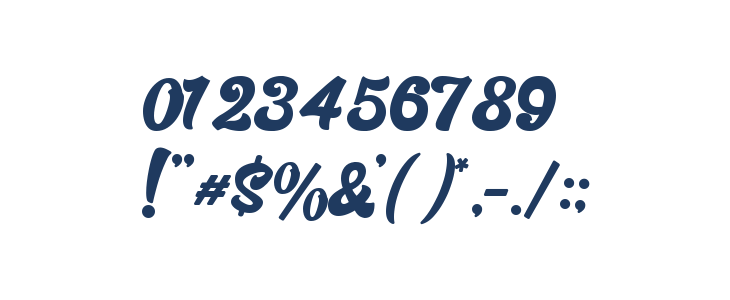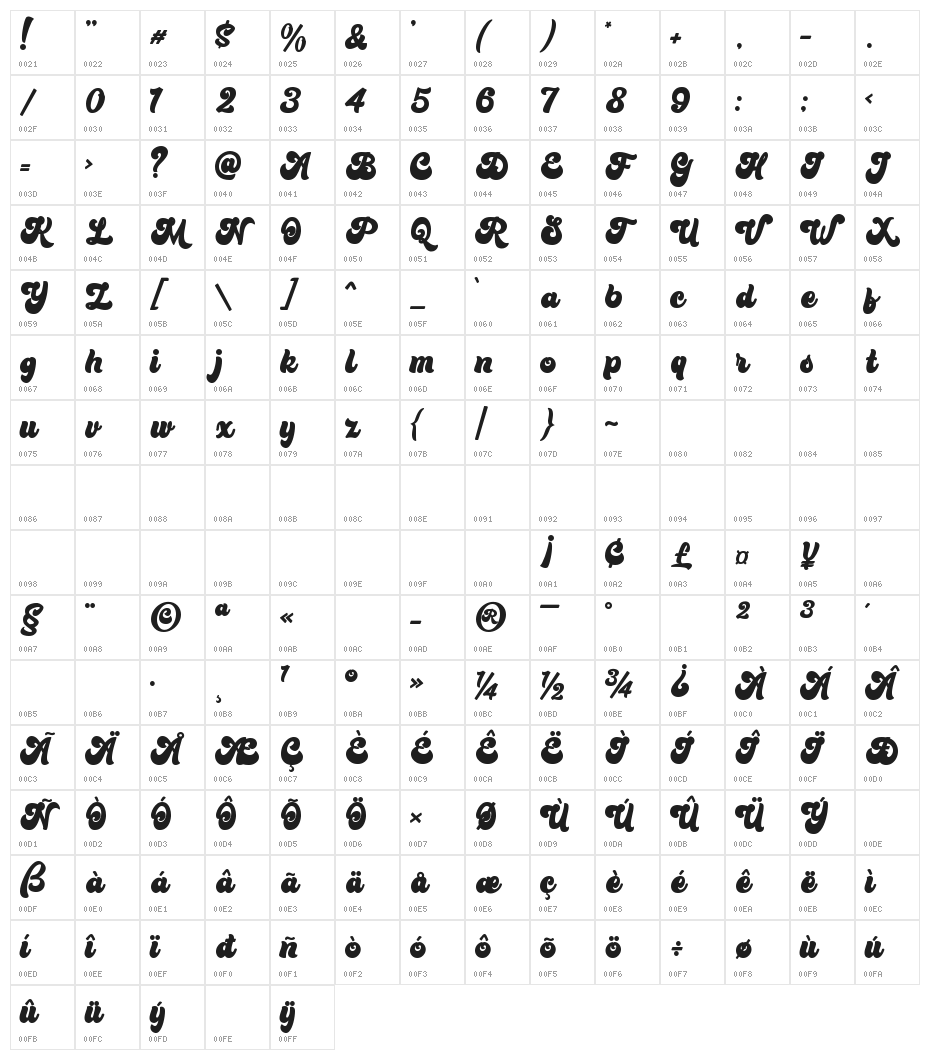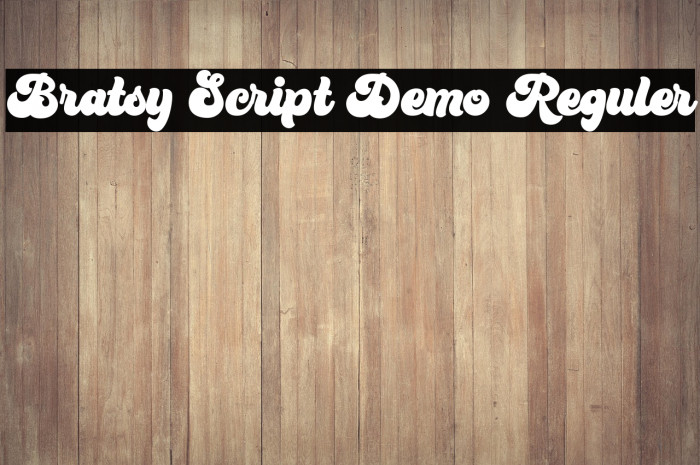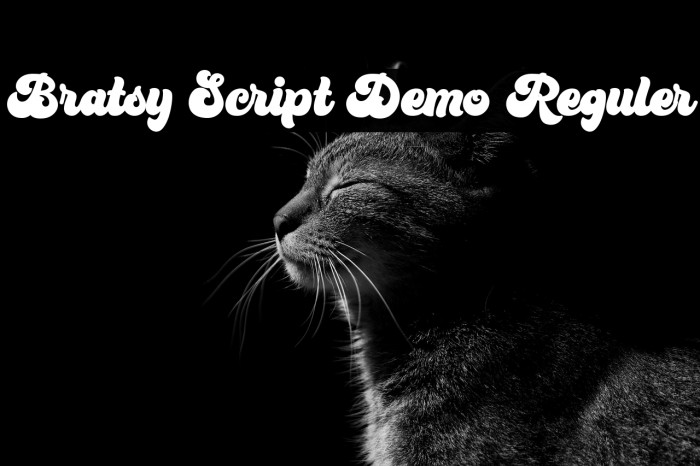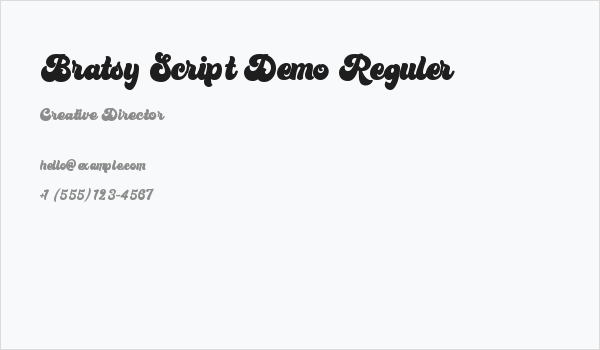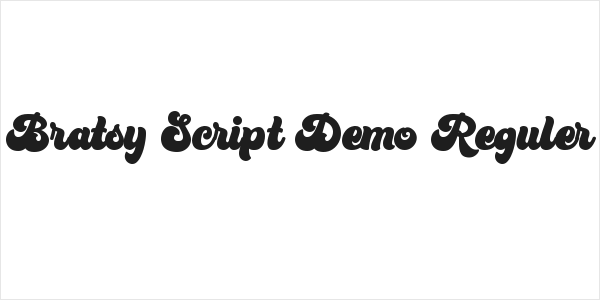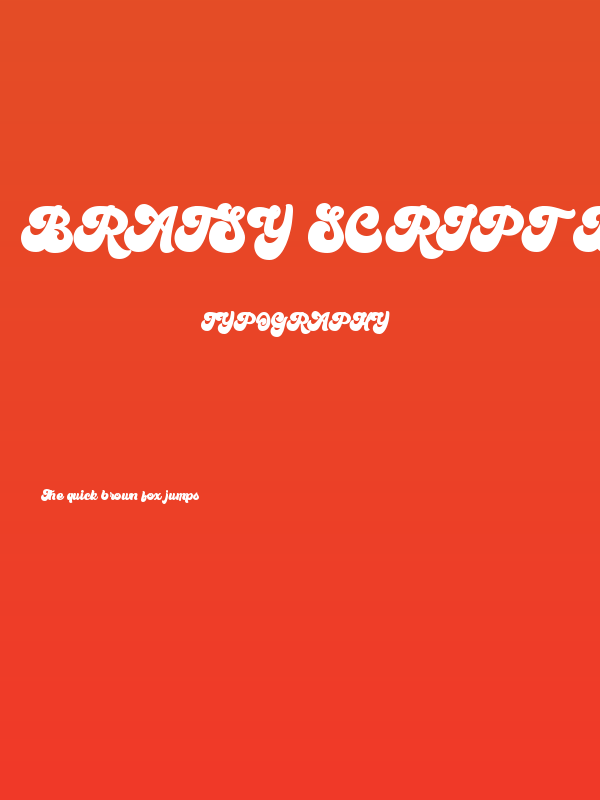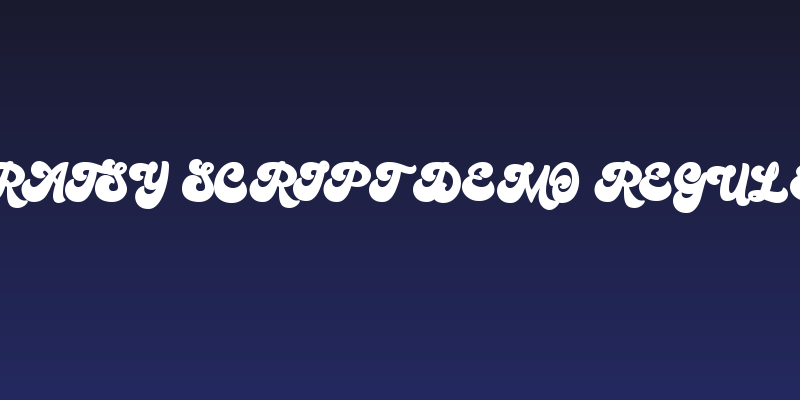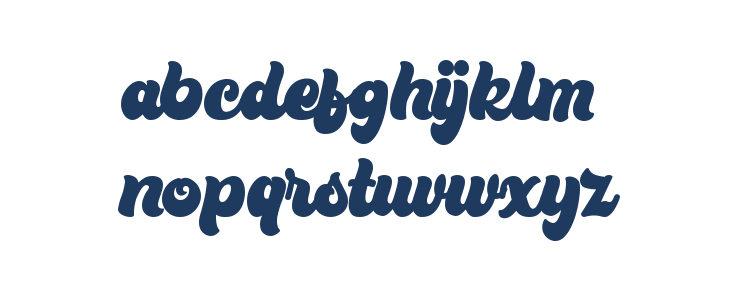
Bratsy Script Demo Reguler Font
Bratsy Script Demo Reguler Description
This font features a bold, flowing script style with a playful and dynamic appearance. The characters are interconnected, creating a sense of continuity and movement. The uppercase letters are ornate and expressive, while the lowercase letters maintain a consistent rhythm. The numbers and special characters are designed to match the overall aesthetic, ensuring a cohesive look. The font's thick strokes and rounded edges give it a friendly and approachable feel, making it suitable for a variety of creative projects.
| Proposed Projects | Ideal for branding, invitations, greeting cards, and playful logo designs. |